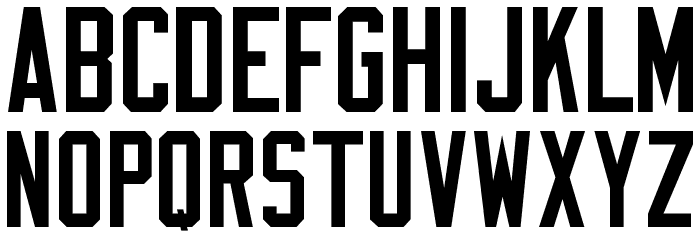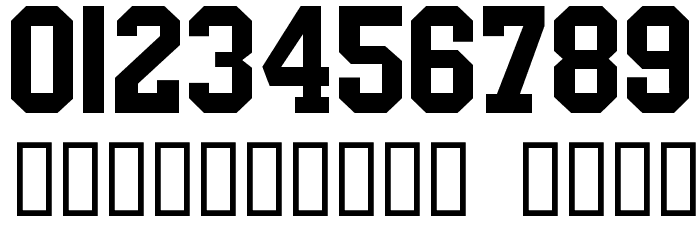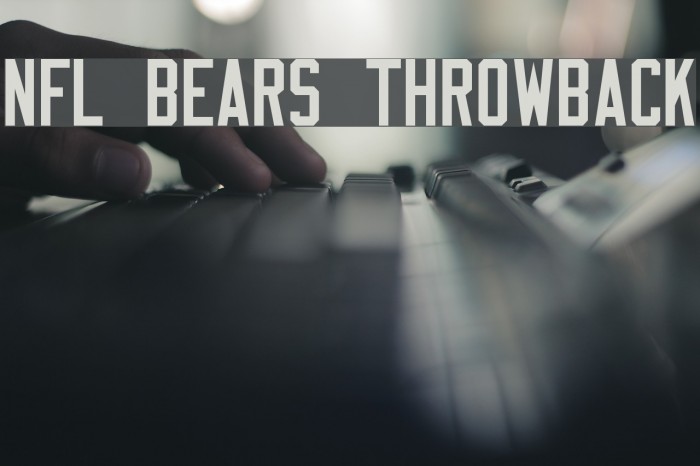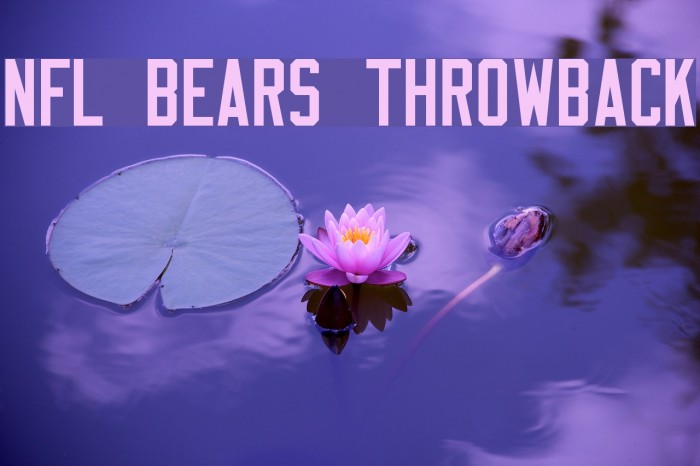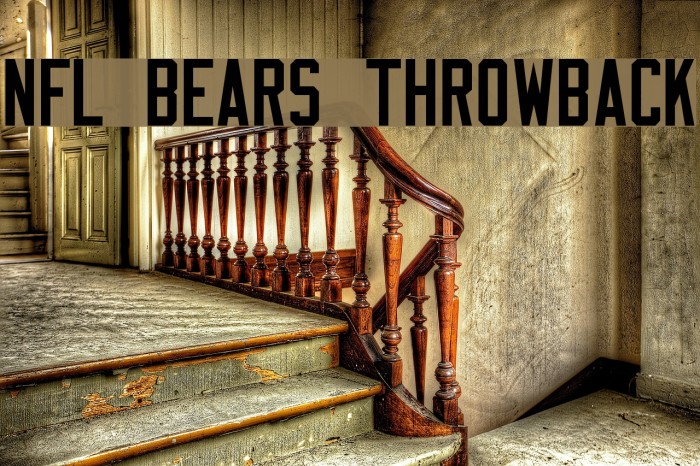
NFL Bears Throwback Font
This font features a bold, geometric style with strong, angular lines and a blocky appearance. The uppercase letters are uniform in height, creating a cohesive and structured look. The numbers follow the same bold and angular design, making them highly legible and impactful. The font's style is reminiscent of vintage sports jerseys, with a nod to classic athletic aesthetics. Its strong presence and clear readability make it suitable for various design applications where a bold statement is needed.
A bold, geometric font with a vintage sports jersey aesthetic.
- Proposed Projects: Ideal for sports branding, team merchandise, retro-themed designs, and bold headlines.
- Overall Style: Vintage
- Use Case: Headlines, Logos, Sports Branding